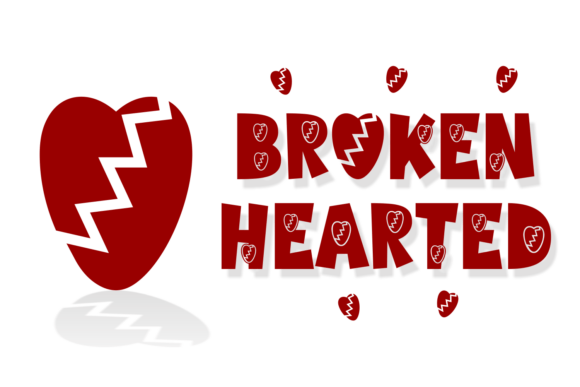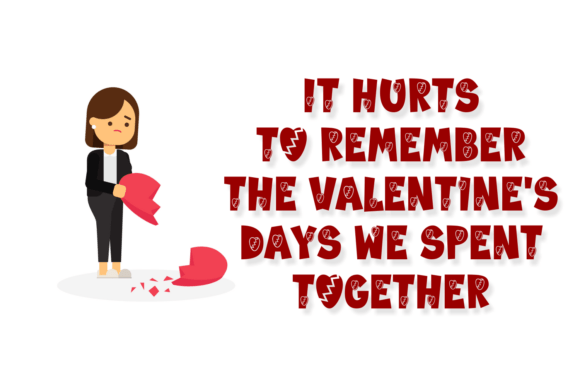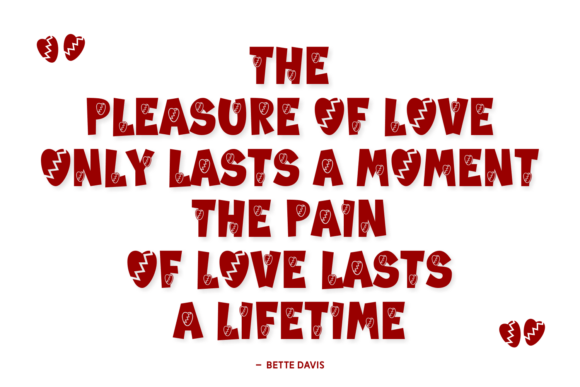
Introduction to Love Betrayer Font
Introducing Love Betrayer Decorative Fonts – a delightful blend of love and whimsy designed to add a unique splash to your creative projects.
These Love Fonts offer an authenticity that pulls at heartstrings, makes perfect Valentine messages, and weaves love into every strand of text Designed with playful characteristics, the Love Betrayer fonts can effortlessly infuse charm into apparel branding or add a tender touch to magazine packaging.
Key Features of Love Betrayer Font
Why Choose Love Betrayer Font?
Love Betrayer Font offers exceptional quality and versatility, making it a valuable addition to your design toolkit. Whether you’re creating for personal projects or commercial use, Love Betrayer Font delivers professional results.